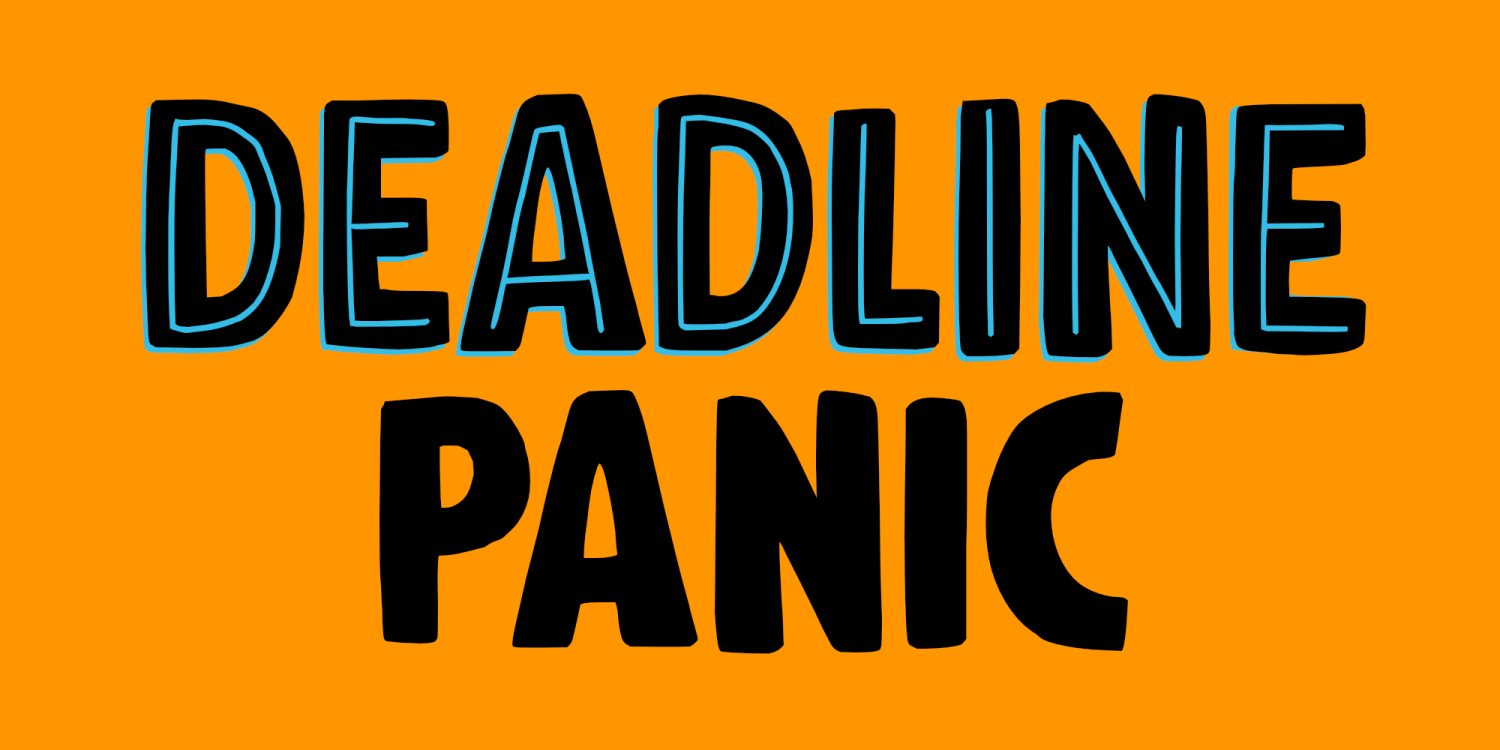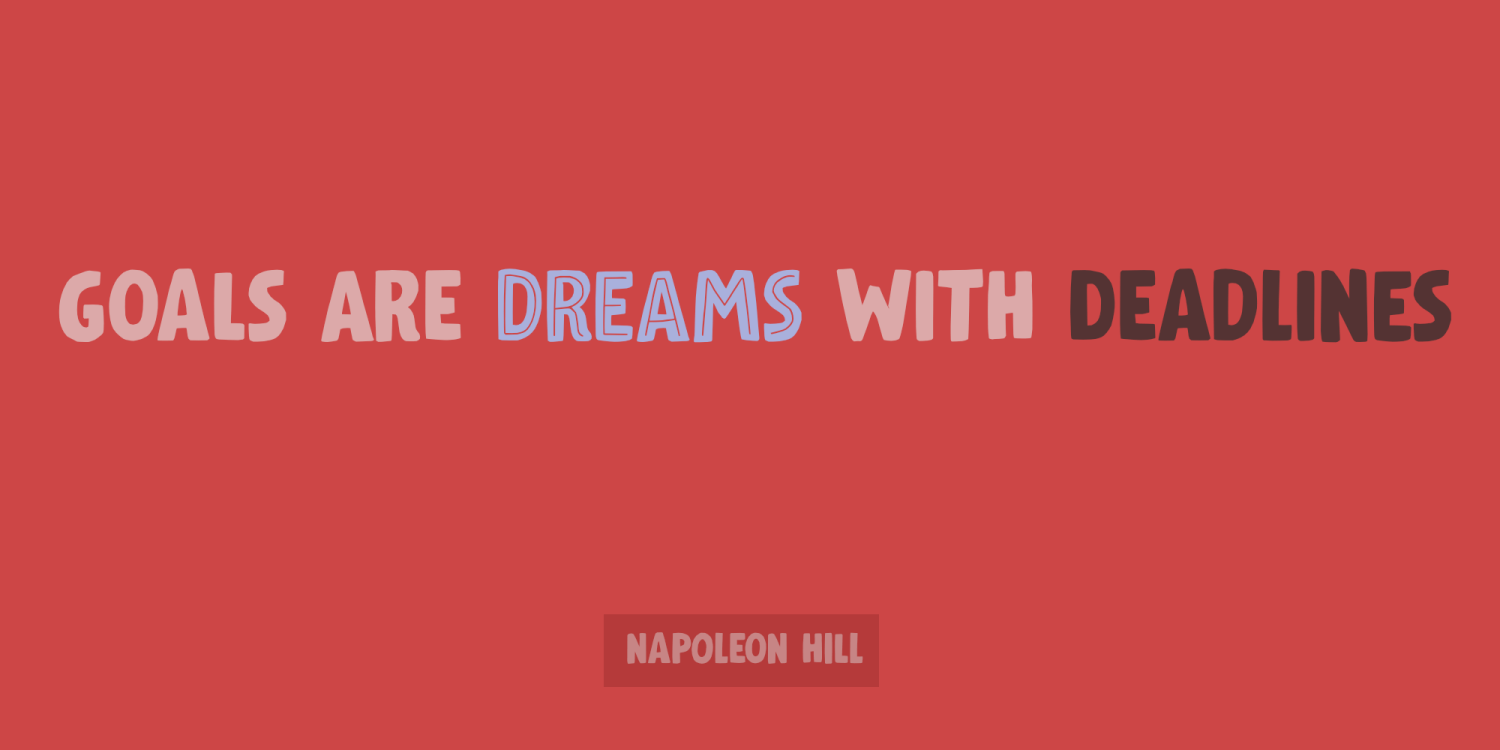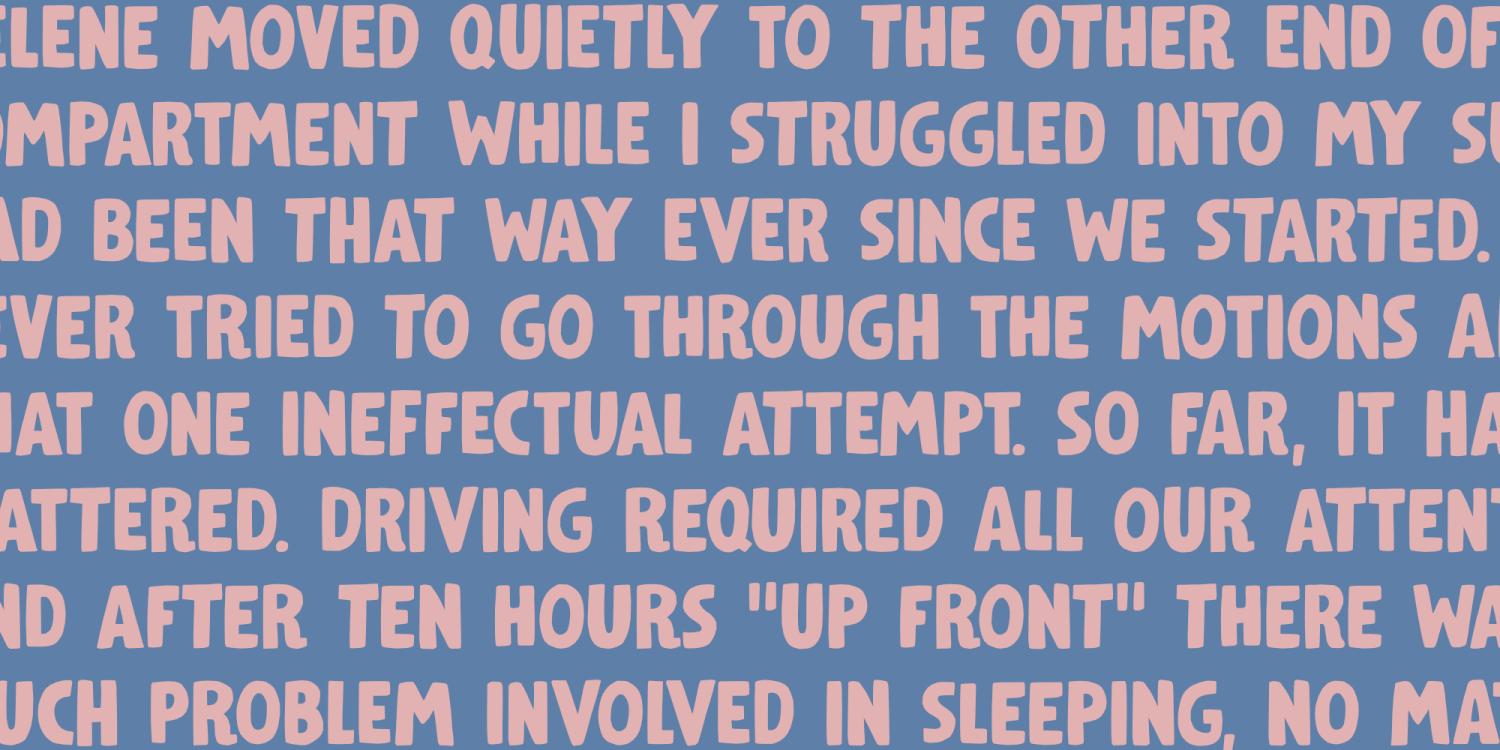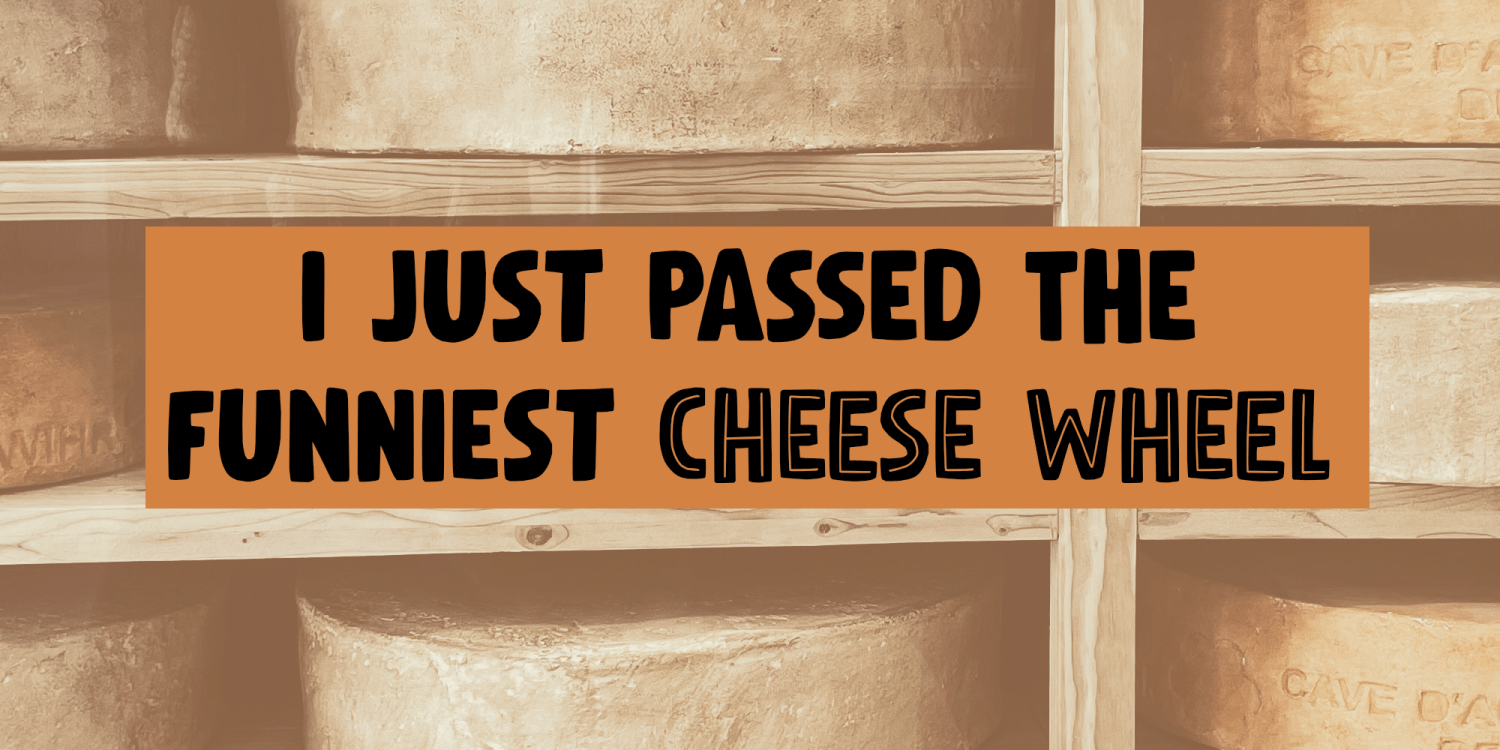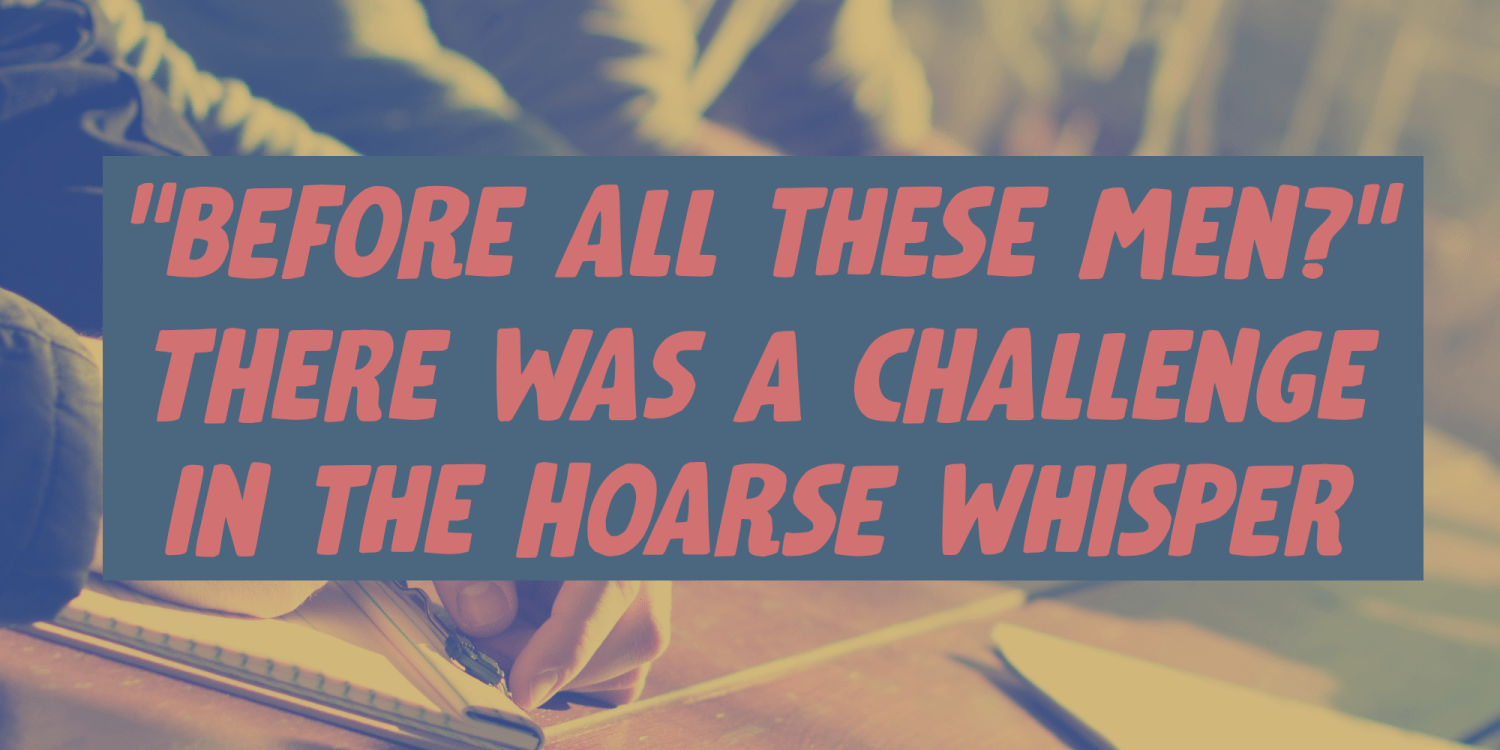
Deadline Panic
Deadline Panic is a handmade font family. It features bold lines, rough edges and unmistakable character. Its unique, unpredictable shapes make it ideal for eye-catching posters, stand out product packaging, and distinctive book covers that need personality and attitude. When your design needs to stand out fast, Deadline Panic delivers.
Deadline Panic by Hanoded